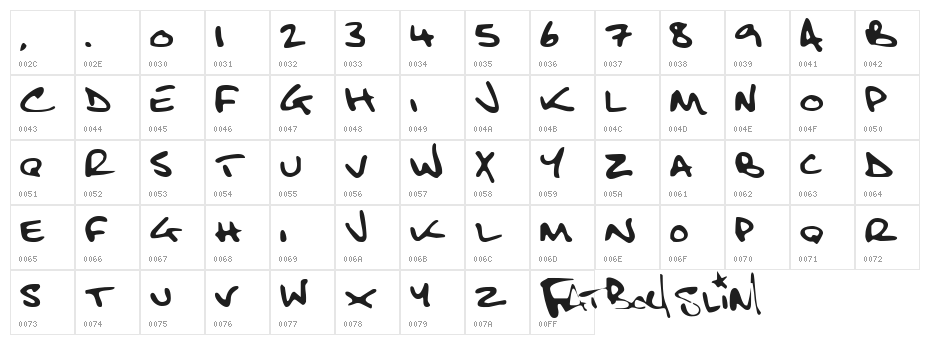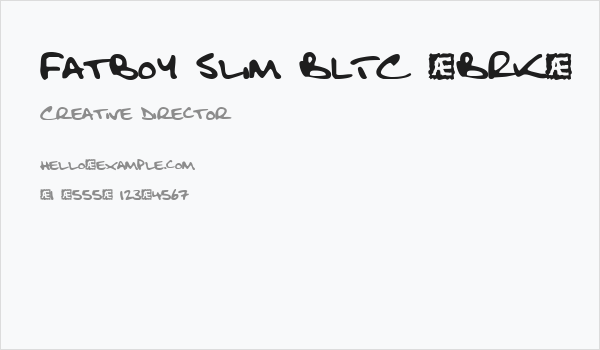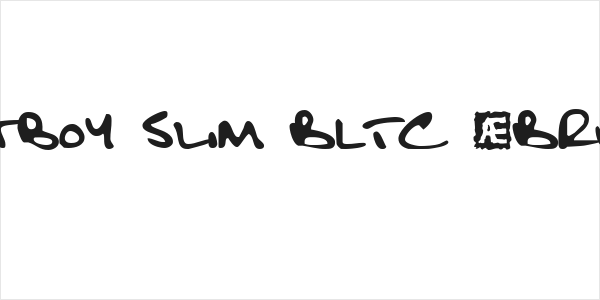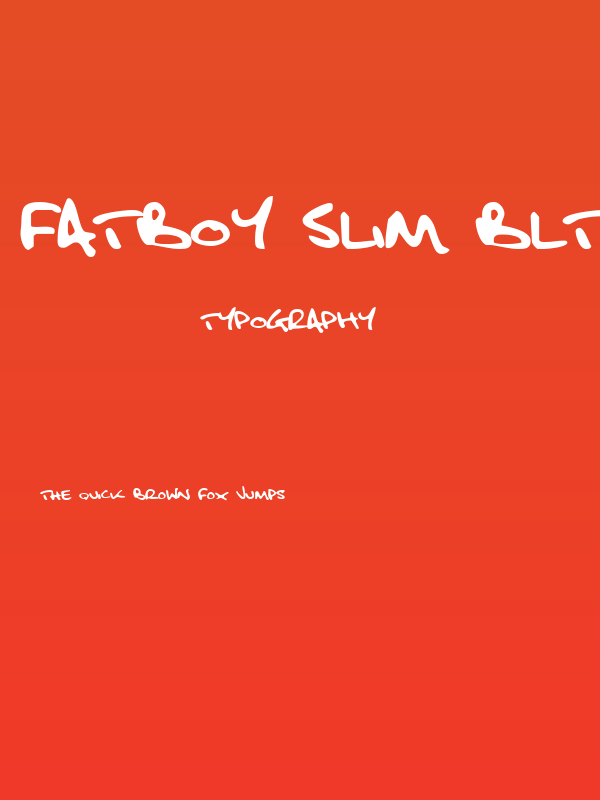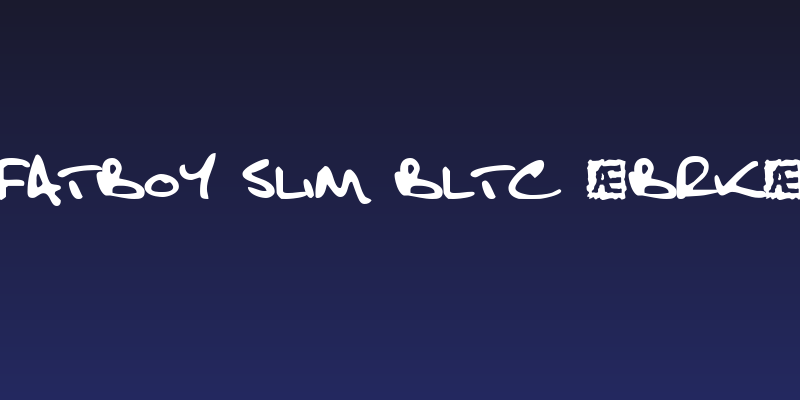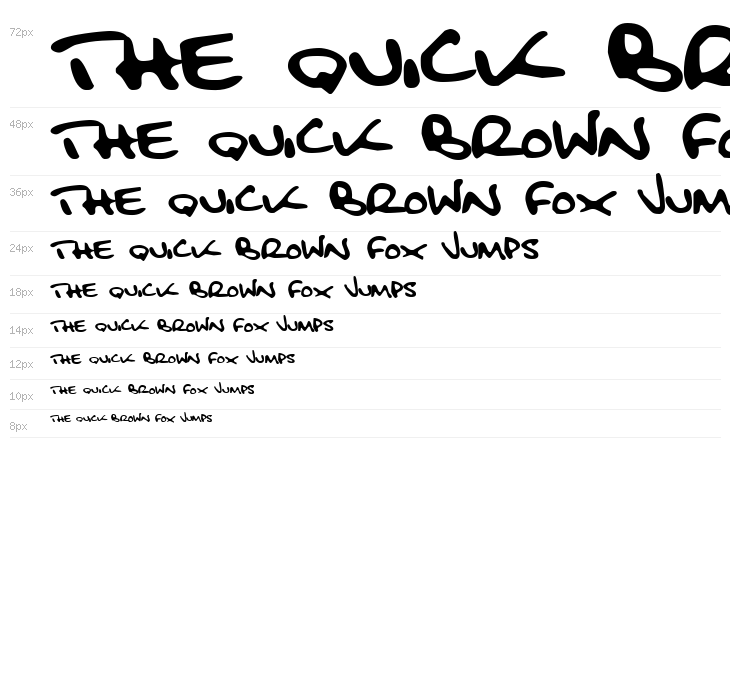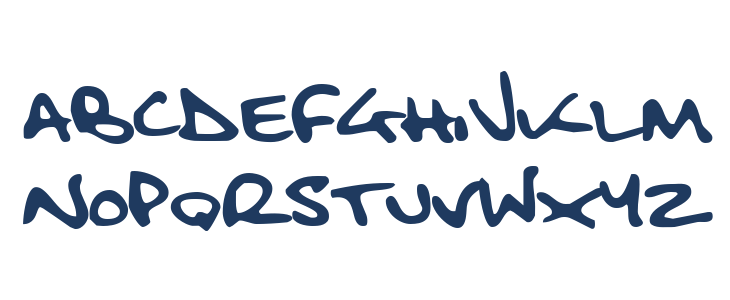
Fatboy Slim BLTC [BRK] Font
Fatboy Slim BLTC [BRK] Description
This font exudes a bold, energetic style with its thick, irregular strokes and playful, handwritten appearance. The uppercase and lowercase letters maintain a consistent, lively flow, while the numbers and special characters complement the overall aesthetic. Its informal, graffiti-like design makes it stand out, capturing attention with its dynamic and slightly chaotic form. The font's unique character is emphasized by its uneven baseline and varying stroke thickness, giving it a raw, expressive feel that is both modern and artistic.
| Overall Style | Modern, Artistic |
| Use Case | Logos, Posters, Creative Branding |
| Proposed Projects | Ideal for street art-inspired designs, music album covers, event posters, and creative branding projects. |